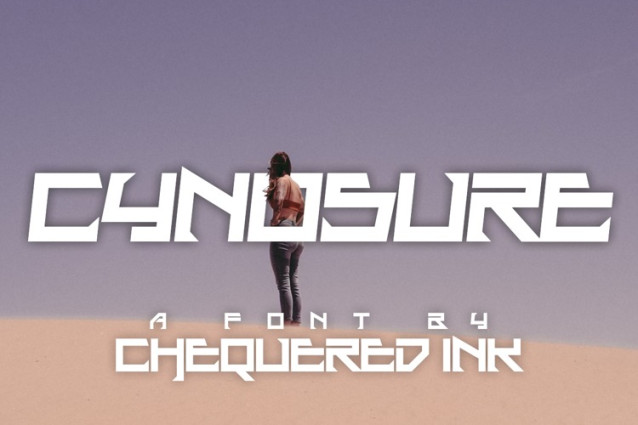
Cynosure Font
Cynosure Font a strong, confident and powerful typeface designed to suit sports logos, club branding, apparel applications, labels and more.